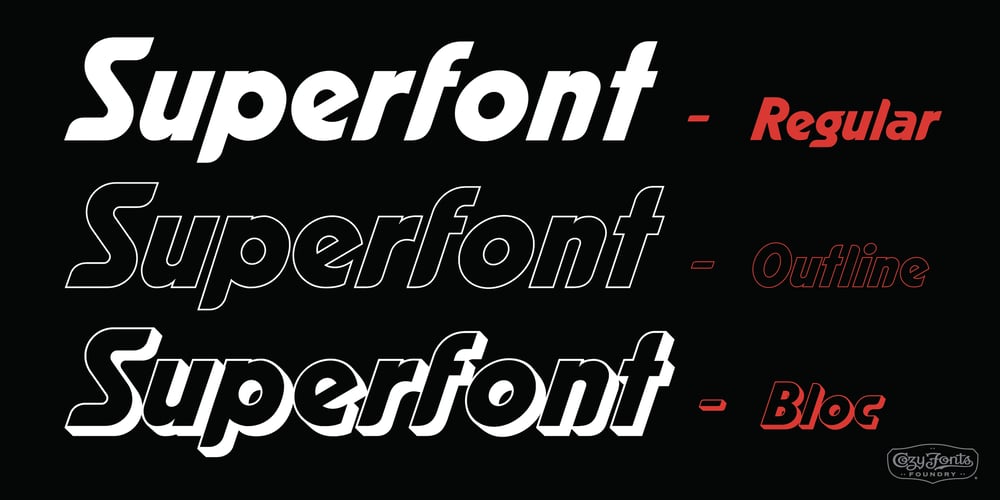
Superfont
Superfont font
Superfont Font Family was designed by Tom Nikosey and published by CozyFonts. Superfont contains 3 styles and family package options. Superfont type family, created by Tom Nikosey, California Typographic Designer/Illustrator is based on his design and illustration for the title art for the 1984 movie Supergirl.’I’ve always felt someday I would design a complete font with variations, including Euro Glyphs and dingbats and numbers based on that logo and letters’.Cozyfonts Foundry is the manifestation of a career-long desire to create fonts in 2011 with his release of Aladdin Bold font family. Superfont is the 22nd font family release.Superfont has a 1960s superhero feel and movement. The entire font family is italic by style. There’s a hint of Retro-Moderne in it’s overall look. The 1960s ushered in the supersonic era in travel and technology with the jetset look in fashion, product design, fabric design, and type design. Superfont is Cozyfont’s take on that era with the innocent future-forward attitude in it’s glyph’s personality.